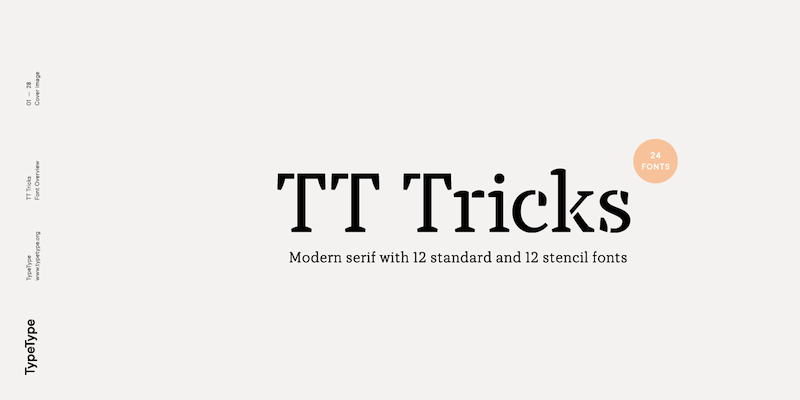
Font name: | TT Tricks |
Author: | TypeType Foundry |
Note by TypeType Foundry | |
TT Tricks is a modern serif font family whose design refers us to the style of transitional serifs. The distinctive features of TT Tricks are the relatively low contrast of strokes, the slightly squarish shapes of round characters and the emphasized businesslike nature. The original idea of TT Tricks is based on the graduation project of student Sofia Yasenkova, who chose to create a daily planner font as her final project. This led to many stylistic decisions, for example, the large and asymmetrical serifs, low contrast strokes, and the presence of interesting details. In the process of working on TT Tricks, we have significantly revised the initial idea and expanded the areas of possible font application, while maintaining the original spirit of the project. Despite the large number of display details, the typeface looks great in a small point size, and also when it is used in large text arrays. --- THIS IS A TRIAL FONT FOR PERSONAL USE ONLY. If you want to use TT Tricks in published or commercial projects you will have to buy this font: https://typetype.org/fonts/tt-tricks/ --- More TypeType fonts and trials: https://typetype.org/fonts More about licensing: https://typetype.org/licensing Contact us: commercial@typetype.org More... |